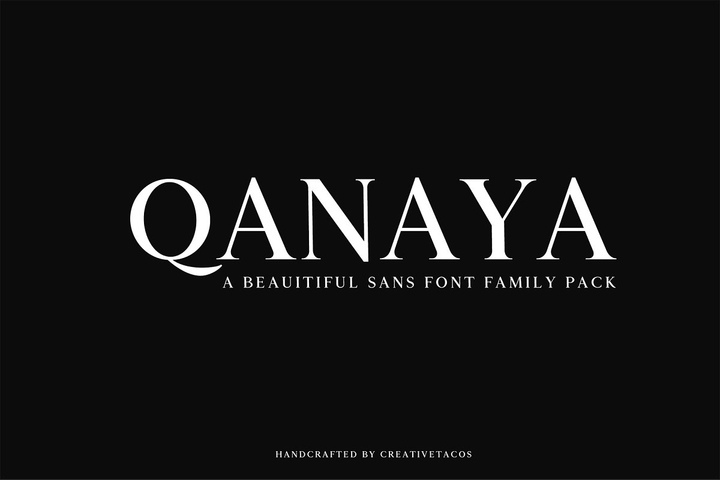
Qanaya Serif Font
Qanaya Serif Font is perfect for luxury publishing, elegant magazines, sophisticated branding, high-end fashion campaigns, premium literary works, refined editorial layouts, upscale business communications, classical art galleries, prestigious academic journals, and distinguished cultural publications.
What makes Qanaya Serif Font exciting is its timeless elegance that embodies classical sophistication and literary refinement through exquisitely crafted letterforms. This distinguished typeface combines traditional serif beauty with contemporary readability, creating a personality that communicates intelligence, culture, and authentic sophistication. The font's classical character and elegant appeal make it perfect for brands seeking to evoke the refined atmosphere of prestigious libraries and the sophisticated charm of traditional literary excellence.
The Qanaya Serif Font family includes Regular, Bold, Light, Medium, Italic, Classical, Elegant, and Refined variants. Each weight maintains the font's sophisticated character while providing comprehensive typographic flexibility for luxury brand identity systems and editorial design applications across diverse cultural platforms.
Whether you're developing luxury publishing identities, creating sophisticated marketing materials, designing elegant editorial layouts, or building prestigious cultural campaigns, Qanaya Serif Font delivers unmatched classical appeal and literary sophistication. Its refined presence makes it perfect for publishing houses, luxury brands, cultural institutions, and prestigious organizations seeking authentic classical representation.
The font's graceful proportions and elegant details create an immersive reading experience that honors the great tradition of fine typography and literary excellence. Each letterform has been carefully crafted to preserve classical typographic heritage while maintaining excellent readability across modern luxury applications.
This versatile typeface excels in cultural environments, offering designers the sophistication needed for comprehensive classical brand communication strategies. The extensive character set includes elegant alternates, classical ligatures, and sophisticated symbols for luxury market positioning and cultural brand storytelling.